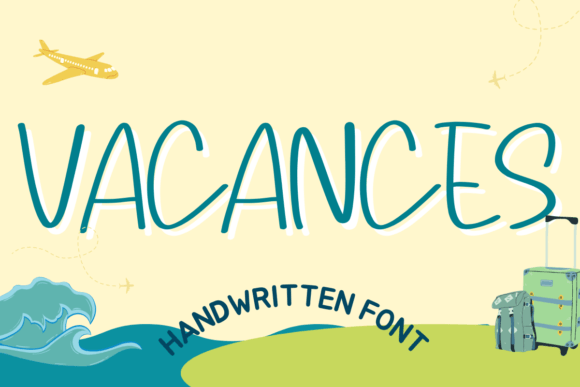
Step into a world of pure bliss and carefree adventures with Vacances Font, the ultimate typeface designed to evoke the joyous spirit of summer and relaxation. Inspired by the sun-drenched beaches, gentle sea breezes, and endless laughter, Vacances Font is a hand-crafted masterpiece that captures the essence of playful moments and lightheartedness.
With its charming irregularities and whimsical style, Vacances Font adds a touch of magic to your designs. Each letter is a work of art, meticulously crafted to reflect the joy of living in the moment. Let your imagination soar as Vacances Font takes you on a typographic journey filled with warmth and vacation vibes.
Whether you're designing summer-themed projects, travel-related graphics, or playful branding, Vacances Font is the perfect companion for adding a splash of fun and relaxation to your work. Its versatility extends to a wide range of applications, from website designs and social media posts to print materials and merchandise.
Embrace the carefree spirit of Vacances Font and let your creativity shine. Explore endless possibilities and create designs that resonate with your audience, leaving them feeling uplifted and inspired. Vacances Font is more than just a typeface; it's an invitation to escape the mundane and embrace the extraordinary.